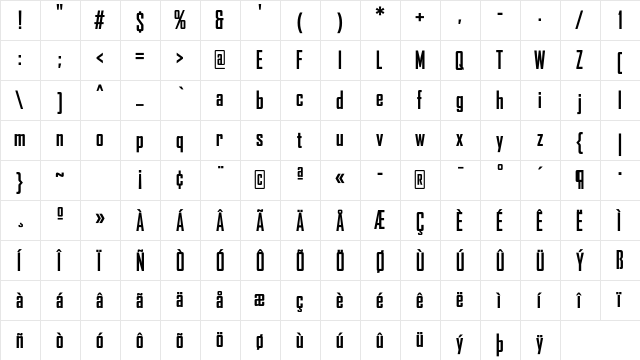
AgencyFB Bold Cond Regular Font Preview
AgencyFB Bold Cond Regular
AgencyFB Bold Cond Regular Font Details
Design Context for AgencyFB Bold Cond Typeface
AgencyFB Bold Cond is a composed and adaptable typeface that performs quietly and consistently across a wide range of design contexts. The heavy weight commands attention and anchors typographic hierarchies. The condensed width makes it efficient for tight spaces without sacrificing legibility.
Pro Tip: Use AgencyFB Bold Cond in both headline and body roles to test its range before committing to a single application.